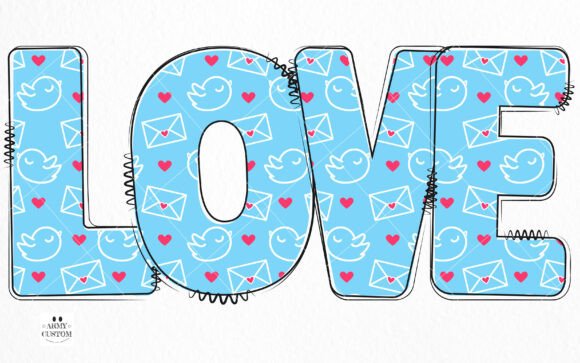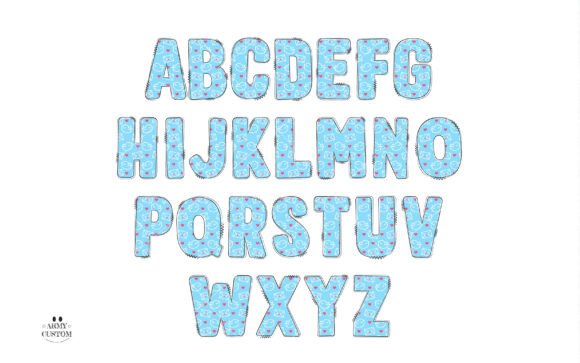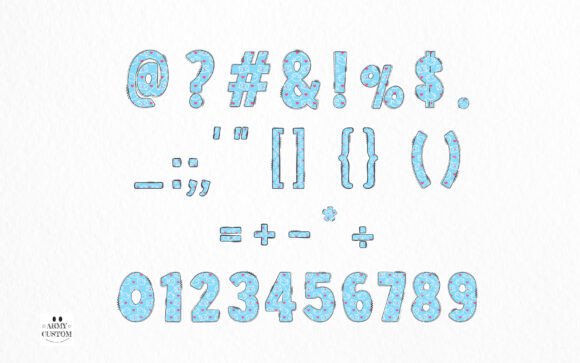
Introduction to Love Valentine’s Bird Font
Immerse yourself in affection with the enchanting โ€œValentineโ€™s Army Bird Alphabetโ€ font.
Every stroke of this doodle font tells a tale of love, making it the perfect way to express your sentiments on the day dedicated to love With each letter permeated by intricately doodled heart patterns, itโ€™s a font thatโ€™s sure to touch your heart.
Key Features of Love Valentine’s Bird Font